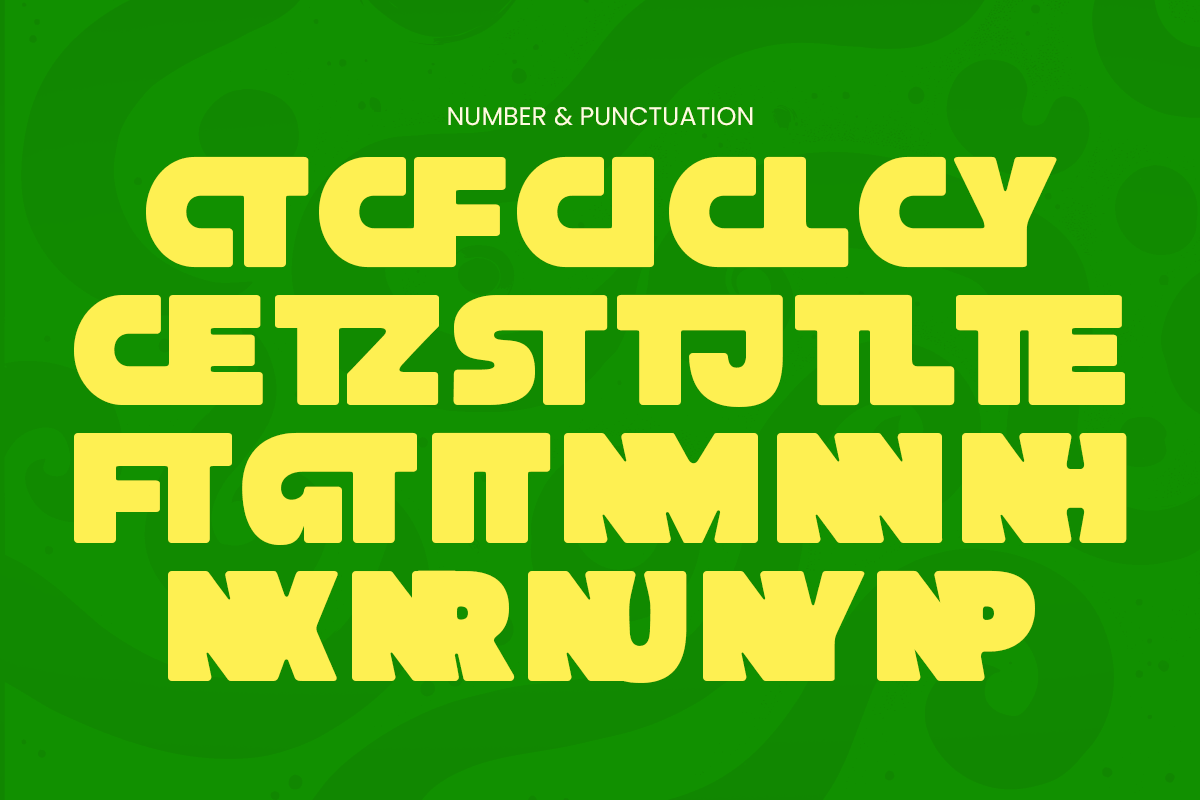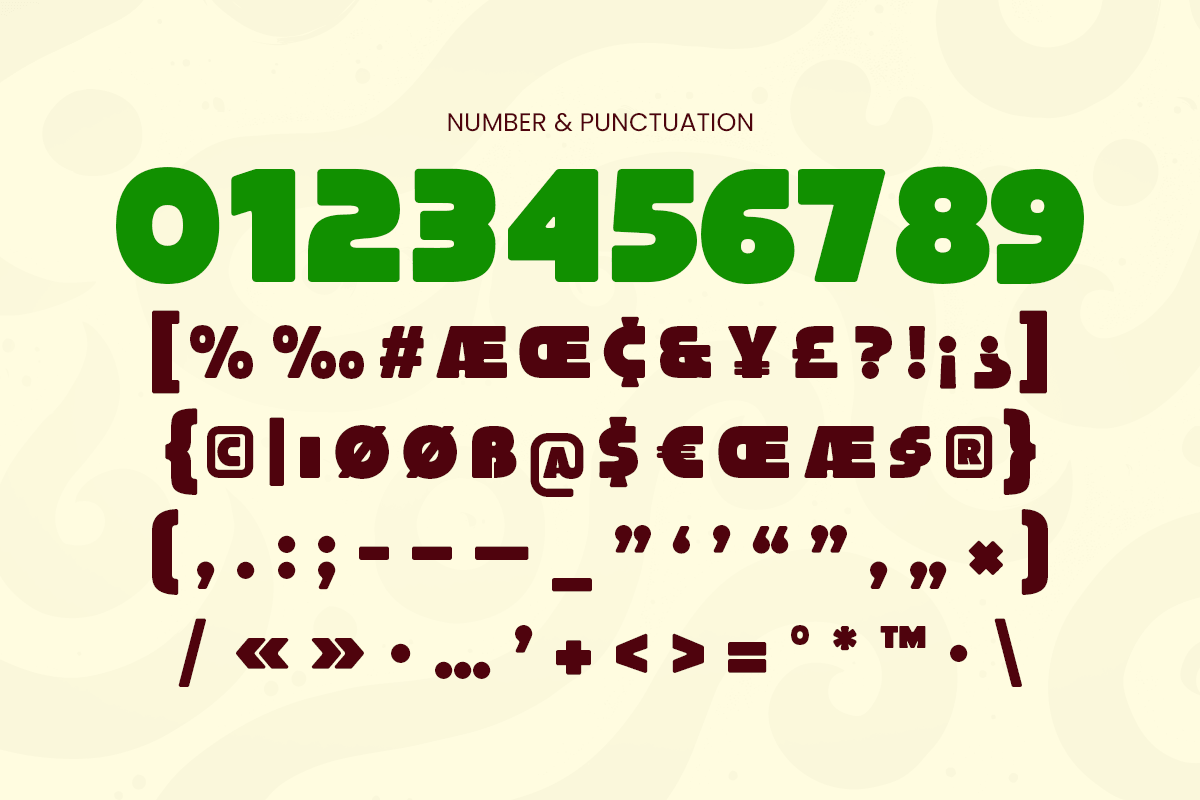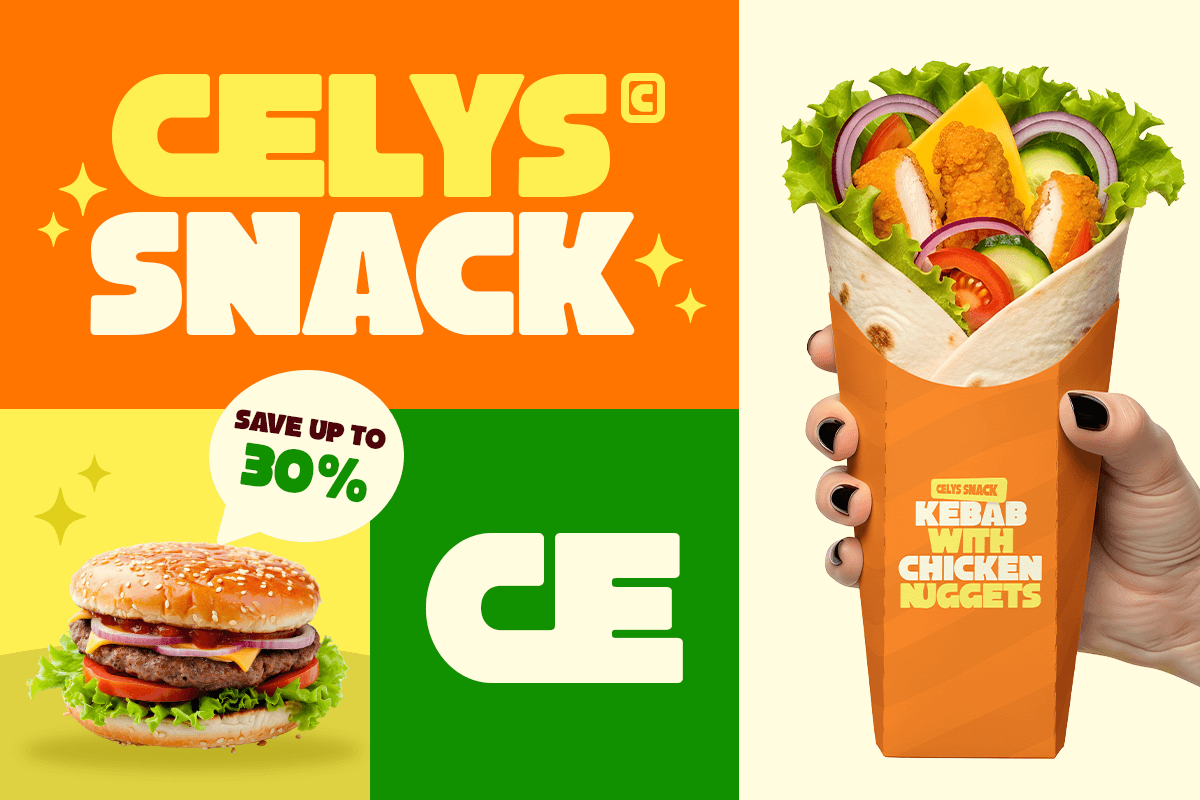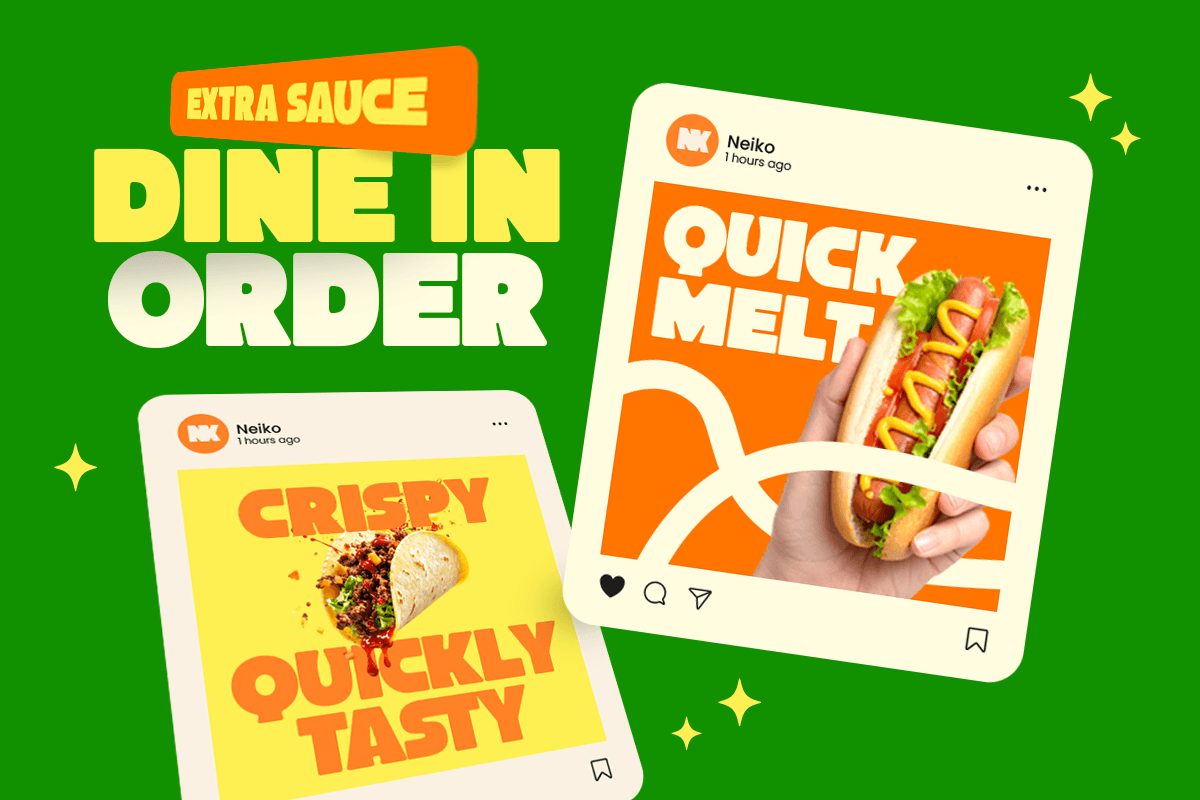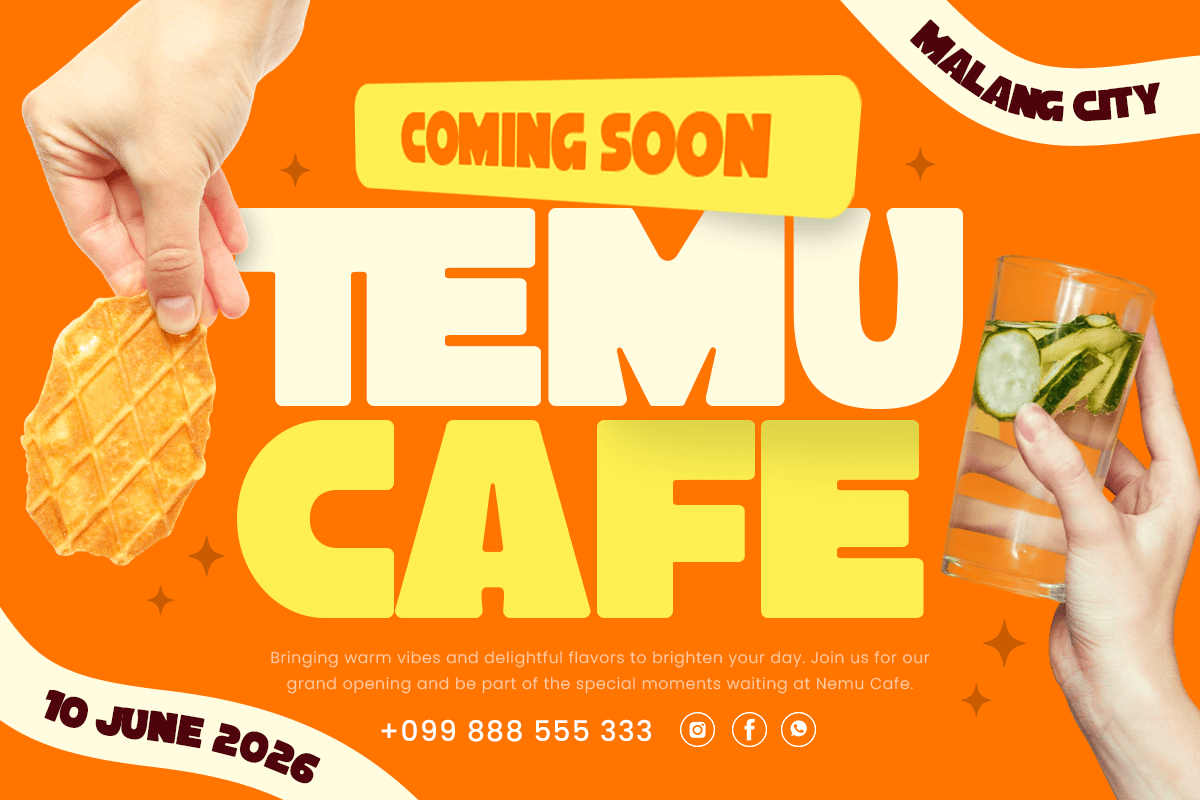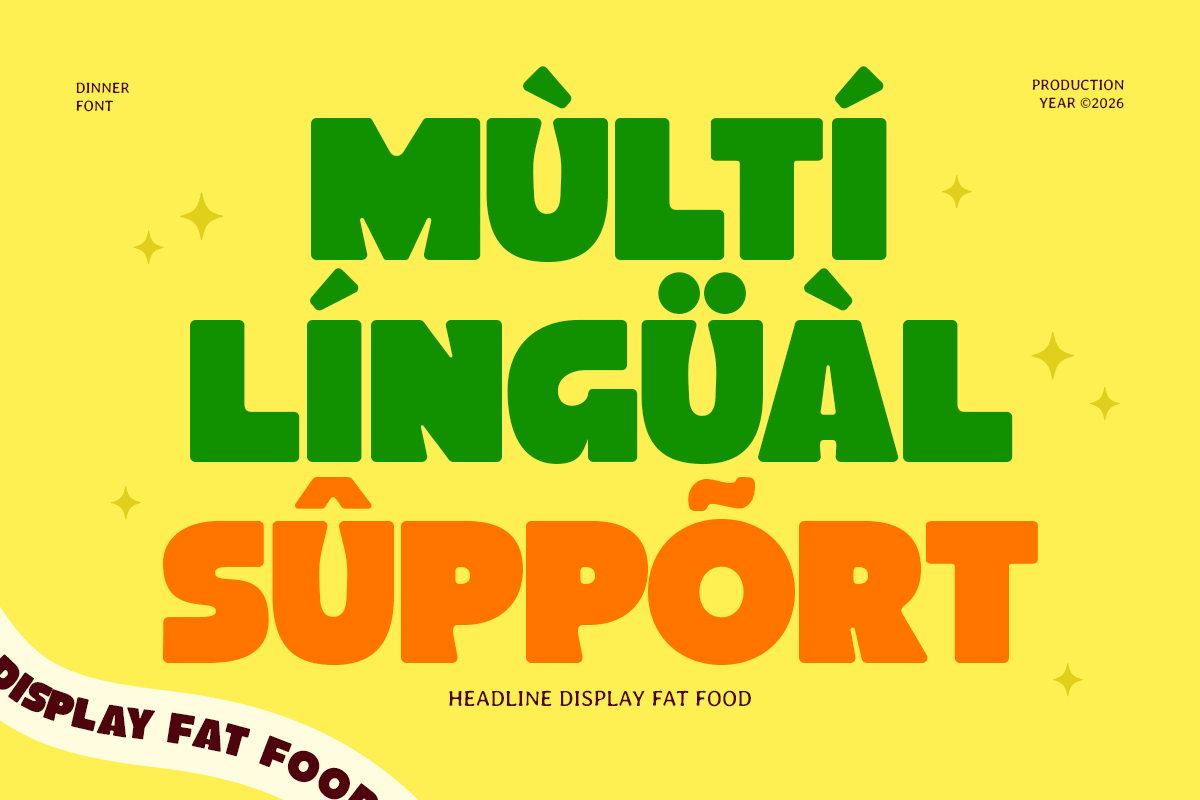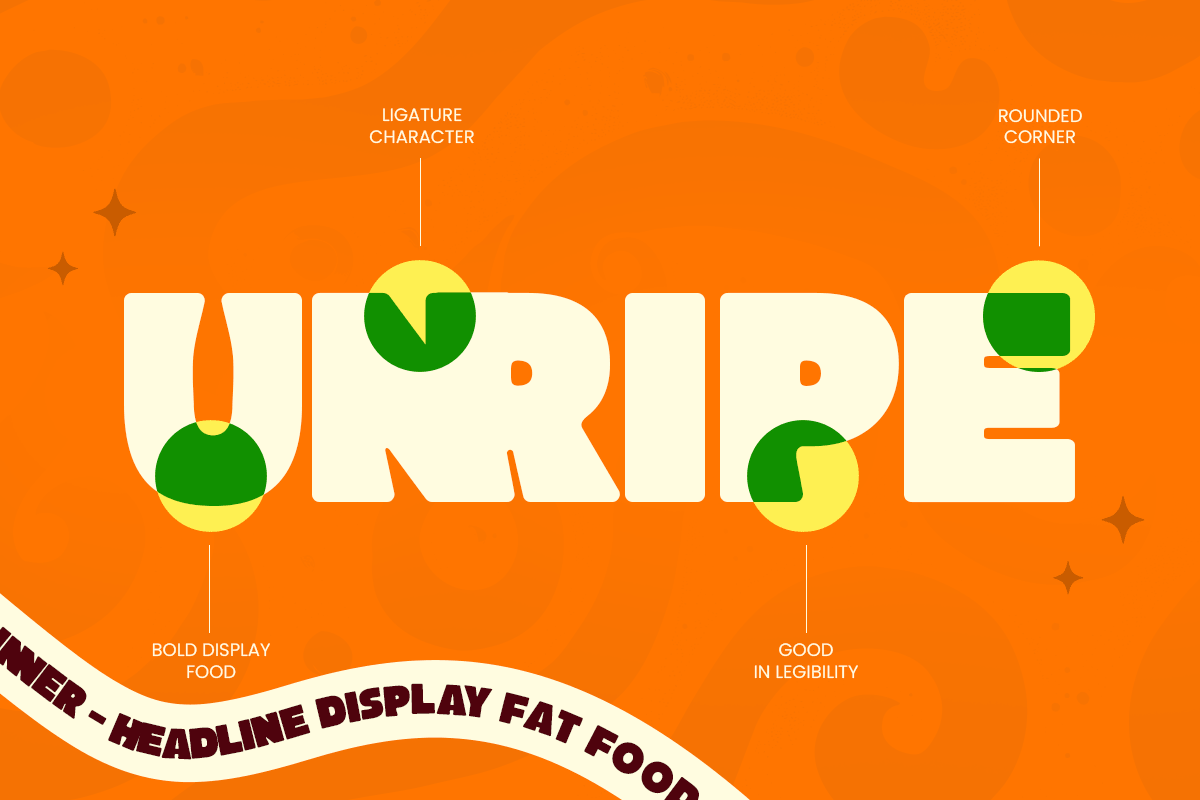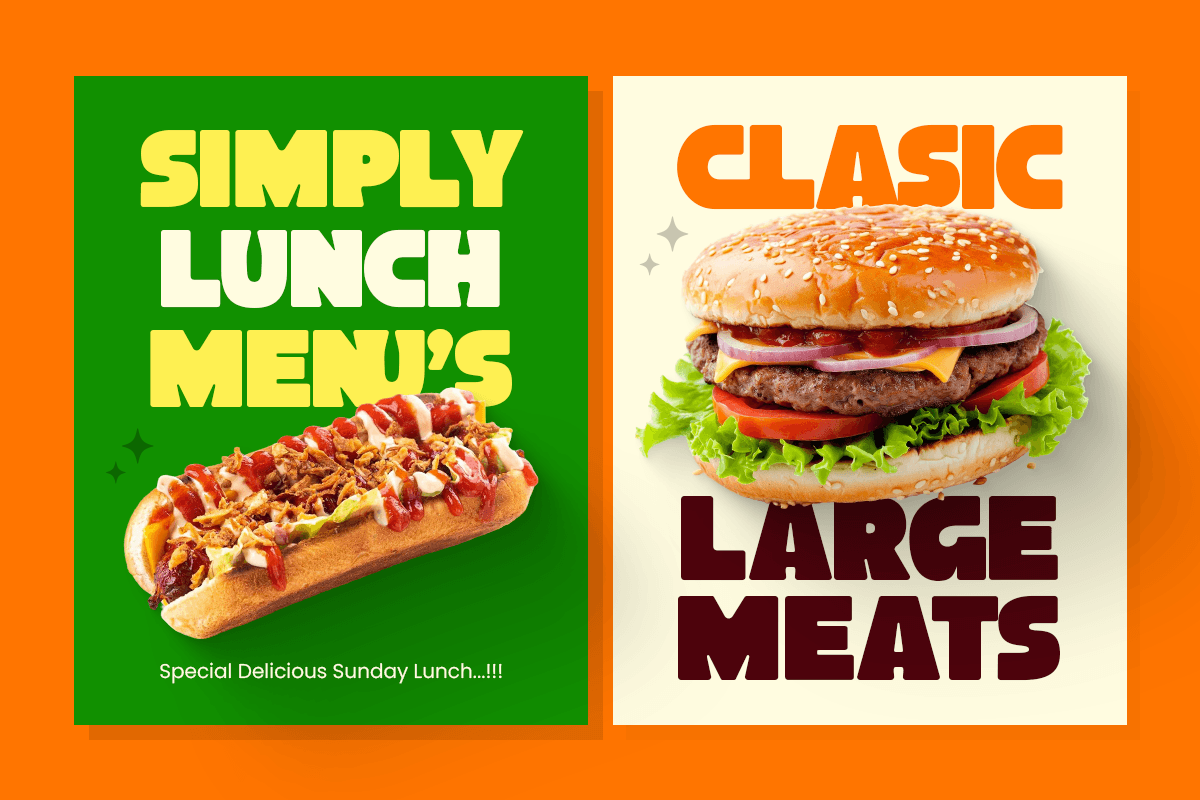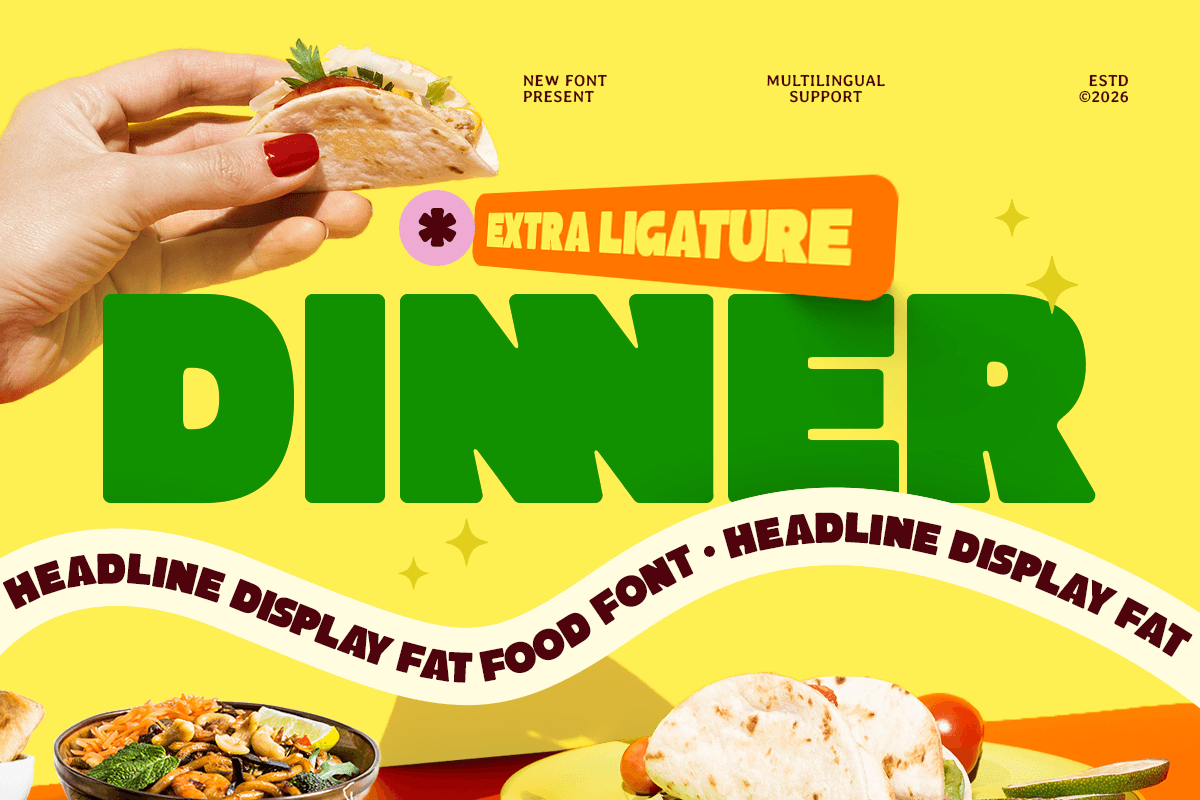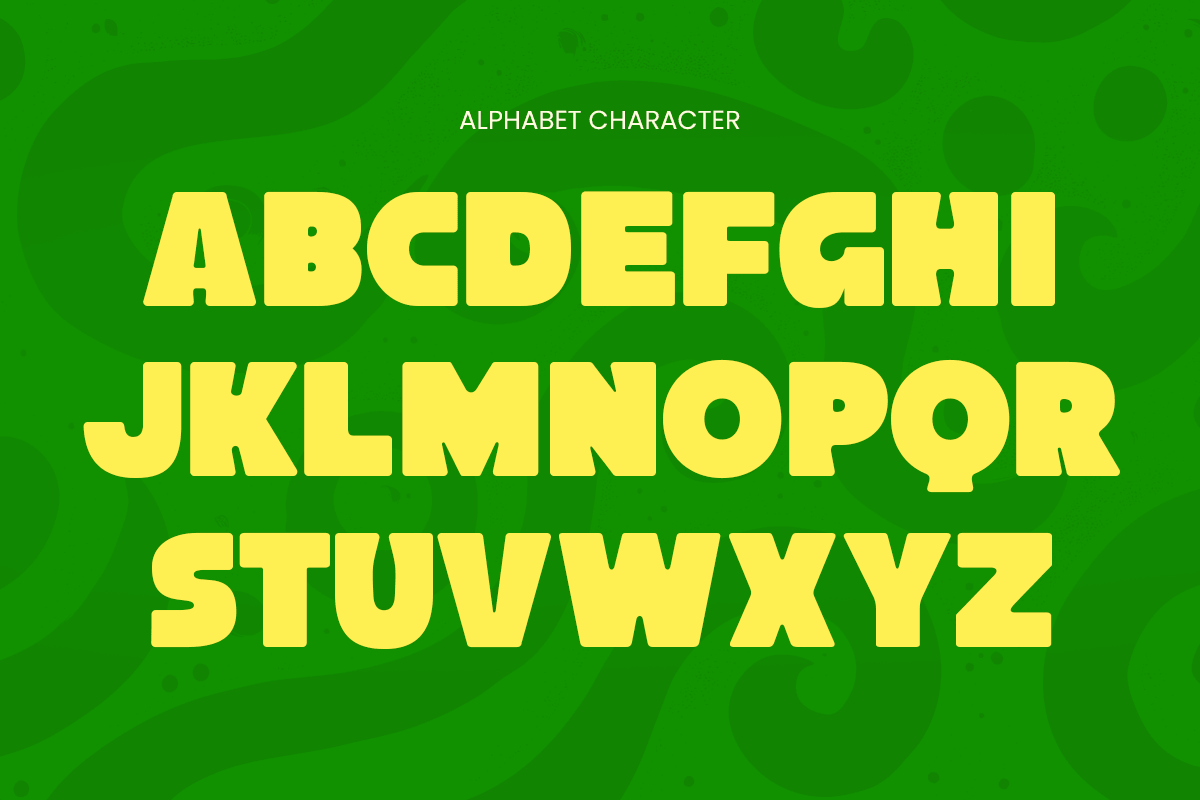
DINNER - Headline Bold Fat Font
DINNER is a headline bold fat font designed to deliver maximum impact with thick, powerful letterforms and a confident visual rhythm. With its chunky structure and bold presence, this typeface creates a striking tone that feels energetic, playful, and instantly attention-grabbing.
Built for statement typography, DINNER works beautifully across posters, headlines, logos, product titles, packaging, signage, social media graphics, website headers, and promotional visuals. Its fat display structure helps every word stand out clearly, making it perfect for bold branding and layouts that need strong visual dominance across both digital and print media.
Whether you’re building a fun brand identity, creating promotional posters, designing bold packaging, or crafting standout headline systems, DINNER provides a heavy display foundation that makes your typography feel loud, memorable, and full of personality.
Inspiration Behind DINNER
DINNER is inspired by oversized display typography and bold graphic headlines—where thick forms and strong rhythm create instant visual attention. The design focuses on fat letterforms, playful confidence, and modern readability to support branding, posters, and promotional design with energetic impact.
DINNER Font Features:
Bold fat letterforms with strong headline character
Perfect for posters, titles, branding, and promotional typography
Chunky display structure for high visual impact
Strong readability for bold layouts and graphic design
Uppercase, lowercase, numerals, and punctuation included
OpenType features for polished professional typesetting
Bold headlines, posters, and title typography
Logos, wordmarks, and playful brand identity systems
Packaging, labels, and product promotion visuals
Website headers, social media graphics, and digital banners
Marketing campaigns, signage, and graphic display layouts
Make every headline impossible to ignore with DINNER—a bold fat font built for loud, unforgettable visual impact. ✨